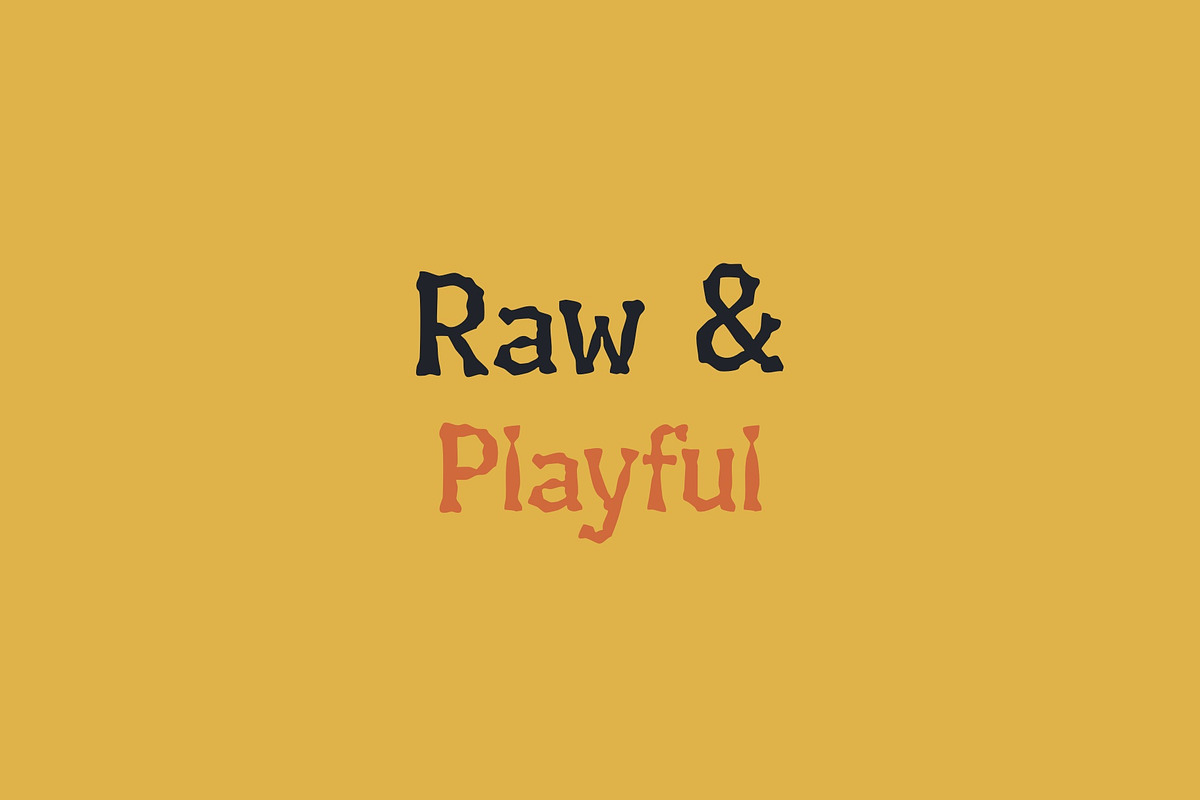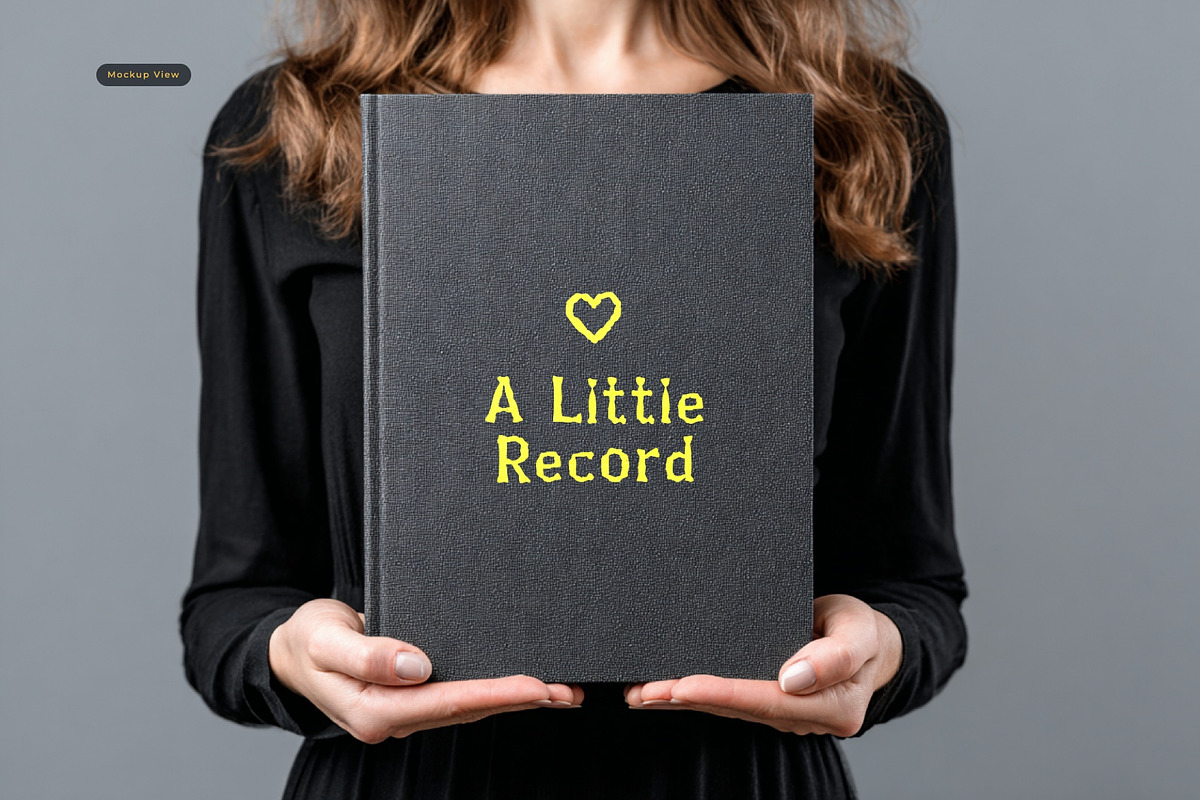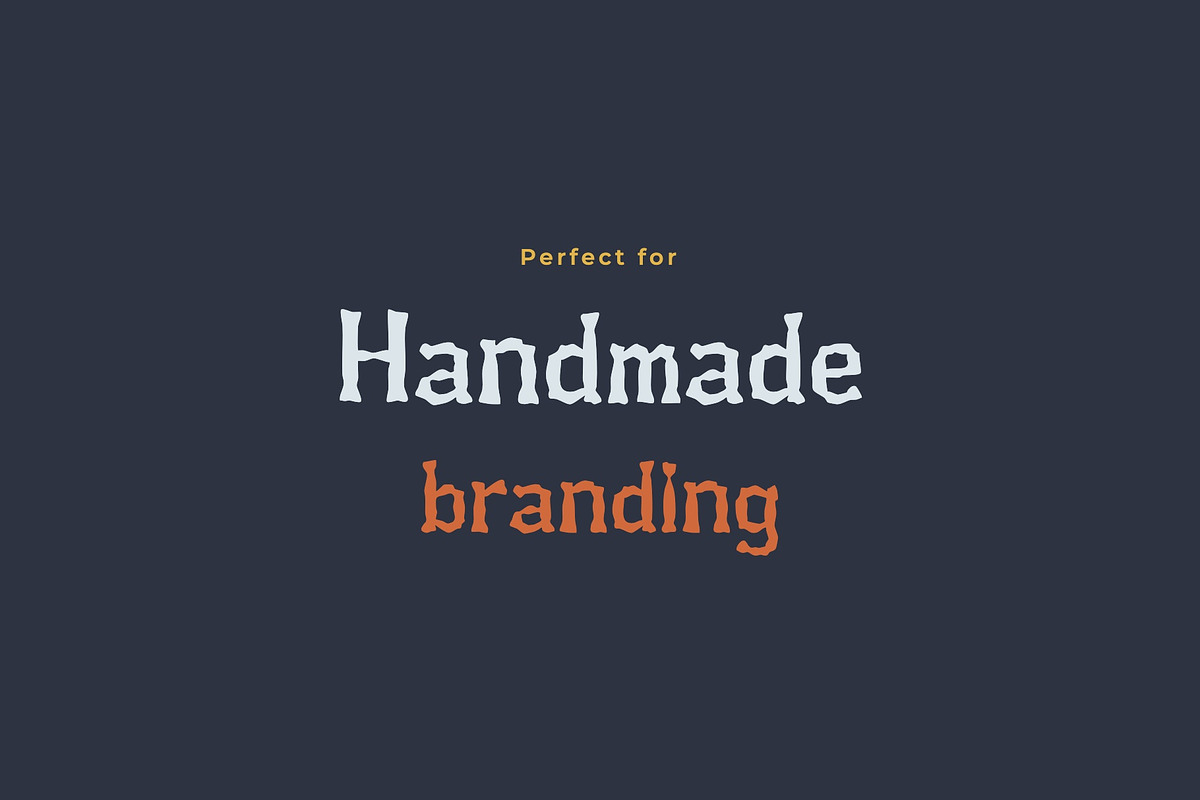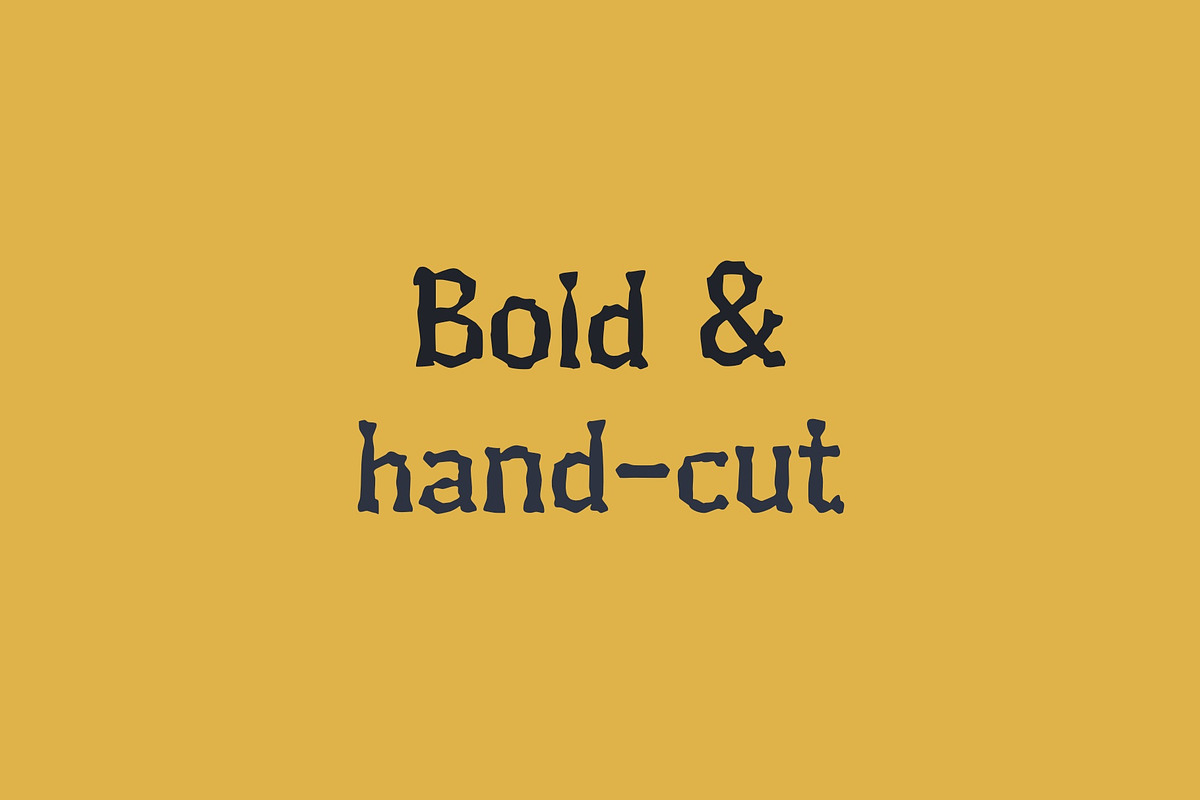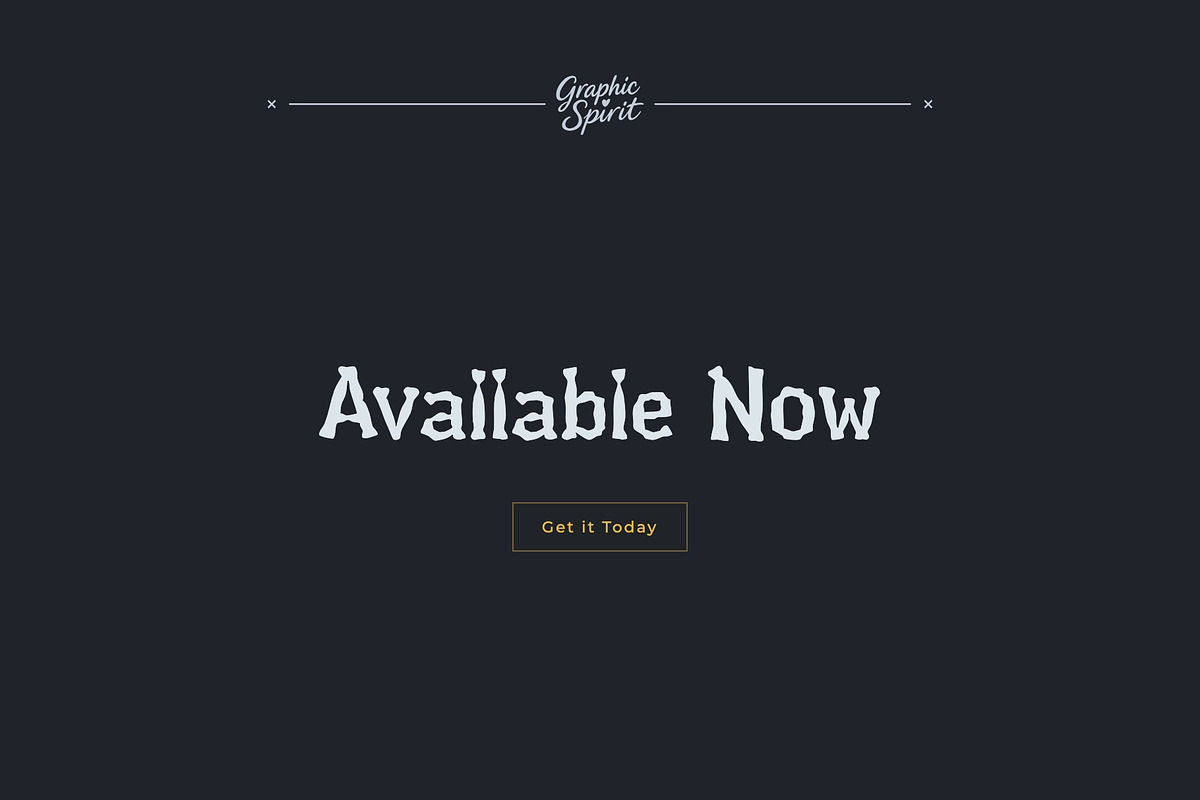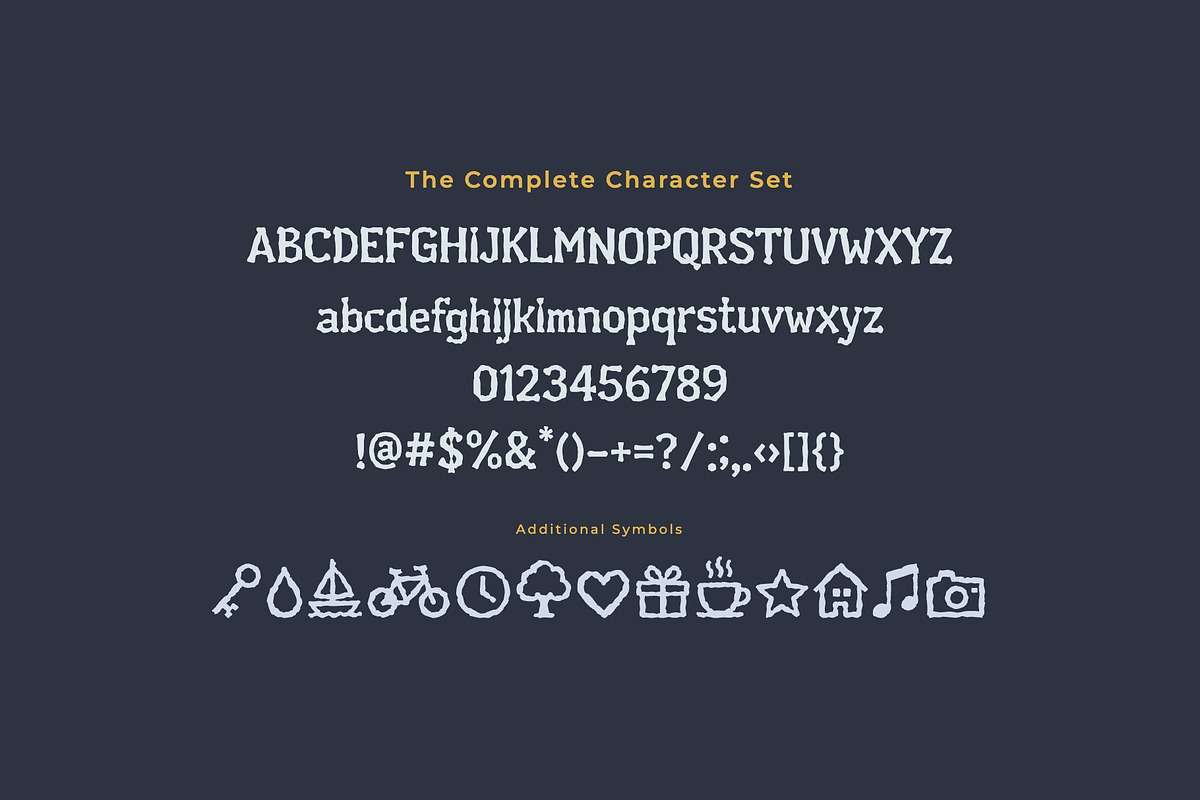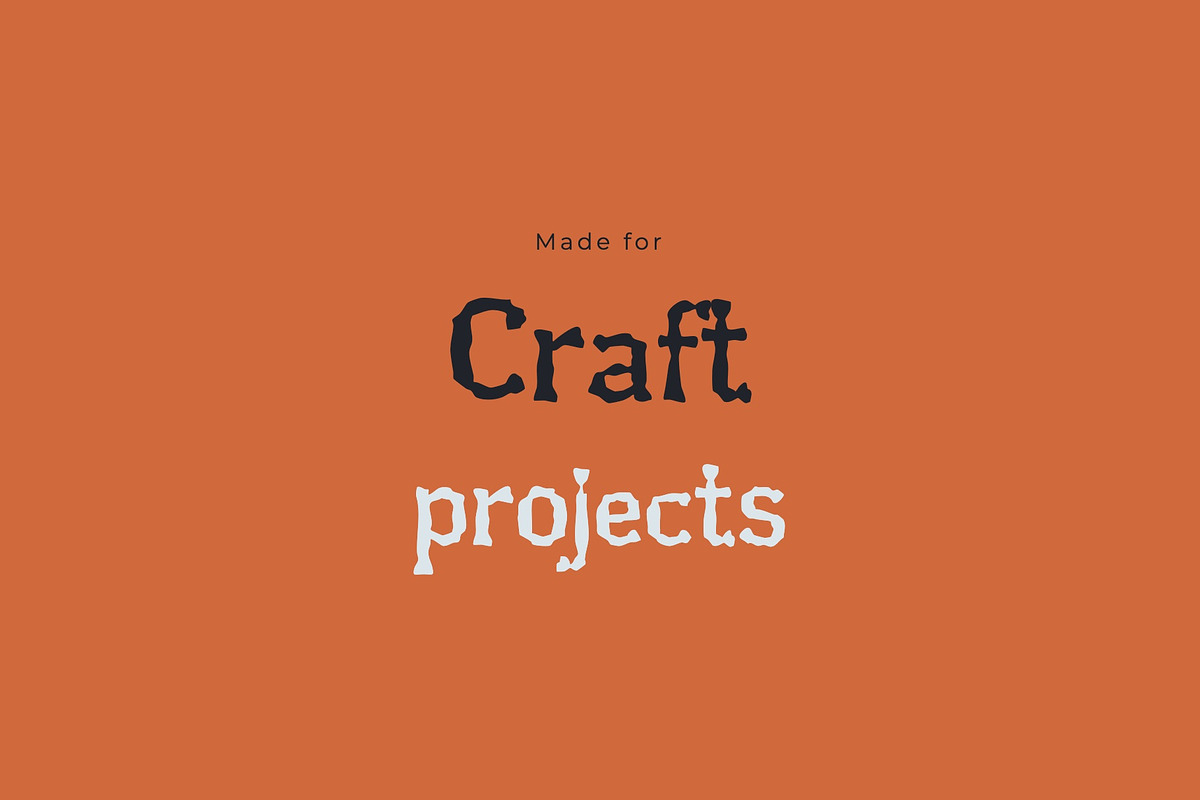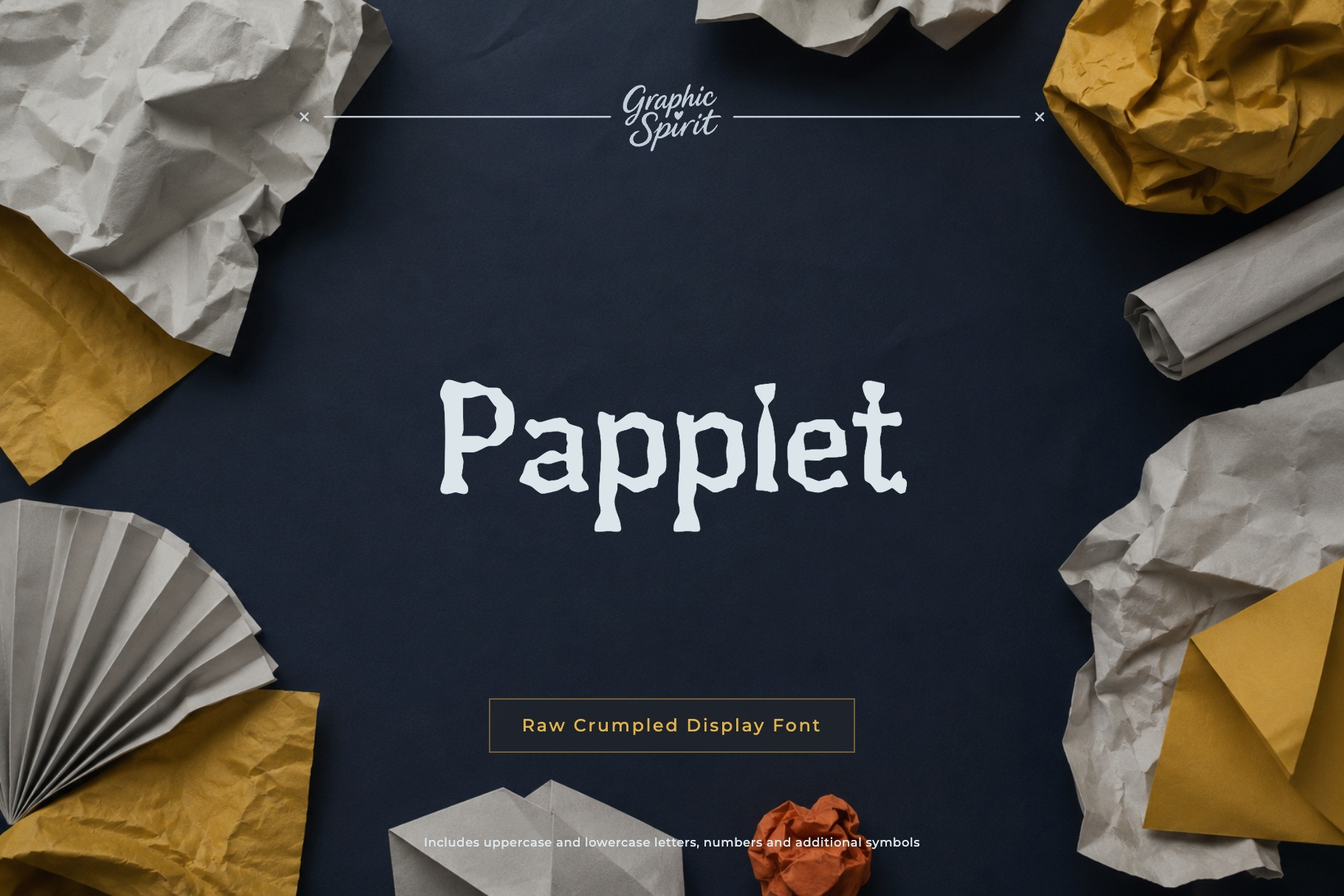
Papplet Decorative Font
✂️ Papplet is a raw papercut display typeface with a handmade collage personality. Its uneven forms and tactile rhythm give every word a warm handcrafted feeling that works beautifully in playful, crafty, and human-centered design.
🎨 Papplet is perfect for handmade branding, DIY packaging, workshop visuals, kids graphics, scrapbook compositions, labels, posters, stationery, creative products, and display layouts that should feel tactile rather than polished.
🧩 The typeface has a strong cutout presence, so even simple titles feel expressive and memorable. It is especially effective when you want a project to feel handmade, artistic, cheerful, and slightly imperfect in a charming way.
\\\\\\\\- ✂️ Papercraft and handmade branding
\\\\\\\\- 🎨 DIY posters and workshop graphics
\\\\\\\\- 📦 Packaging, labels, and creative products
\\\\\\\\- 🧒 Kids design and educational visuals
\\\\\\\\- 📚 Scrapbook and collage-style layouts
\\\\\\\\- 🧩 Playful display typography with tactile character
Includes uppercase and lowercase letters, numbers, punctuation, accented characters, and additional symbols.